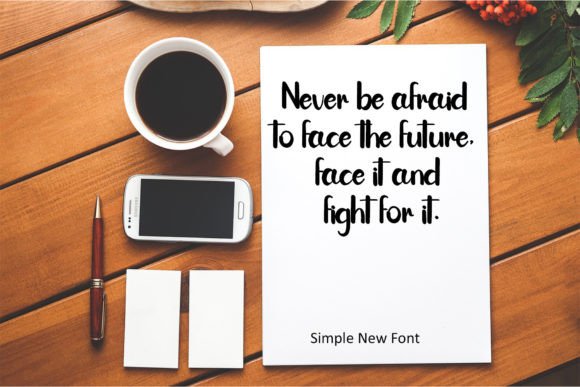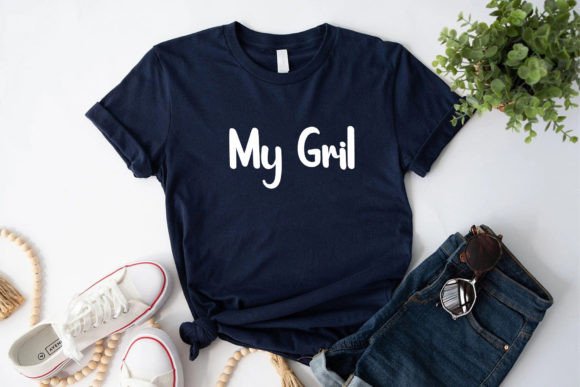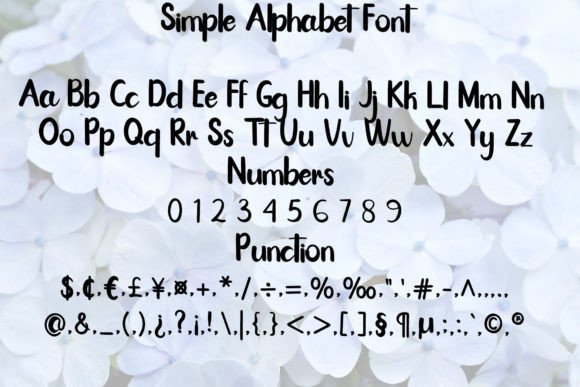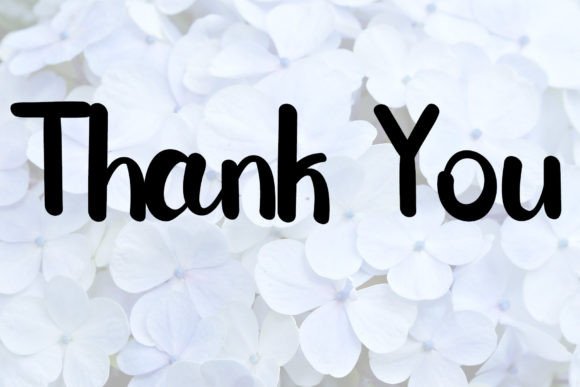
Introduction to Simple Alphabet Font
Simple Alphabet is a tastefully elegant calligraphic script font.
Its graceful strokes and flowing curves bring a touch of sophistication to your text Perfect for invitations, cards, or any project that demands a blend of style and charm, Zero adds a sweet and luxurious feel to your designs.